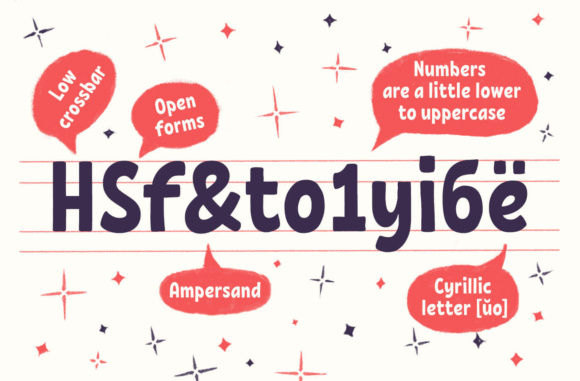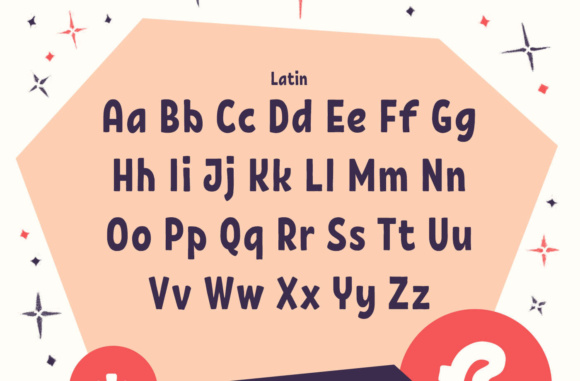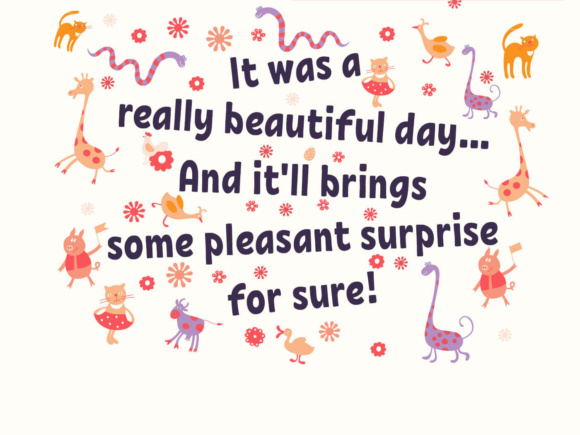
About Krabuler Font
Krabuler is a cheerful, hand-written typeface. If you want to add a bit of fun and a good mood to your design. Krabuler is the perfect choise! Krabuler is made especially for kids and at the same time, Krabuler will work well for solving any other graphic tasks.